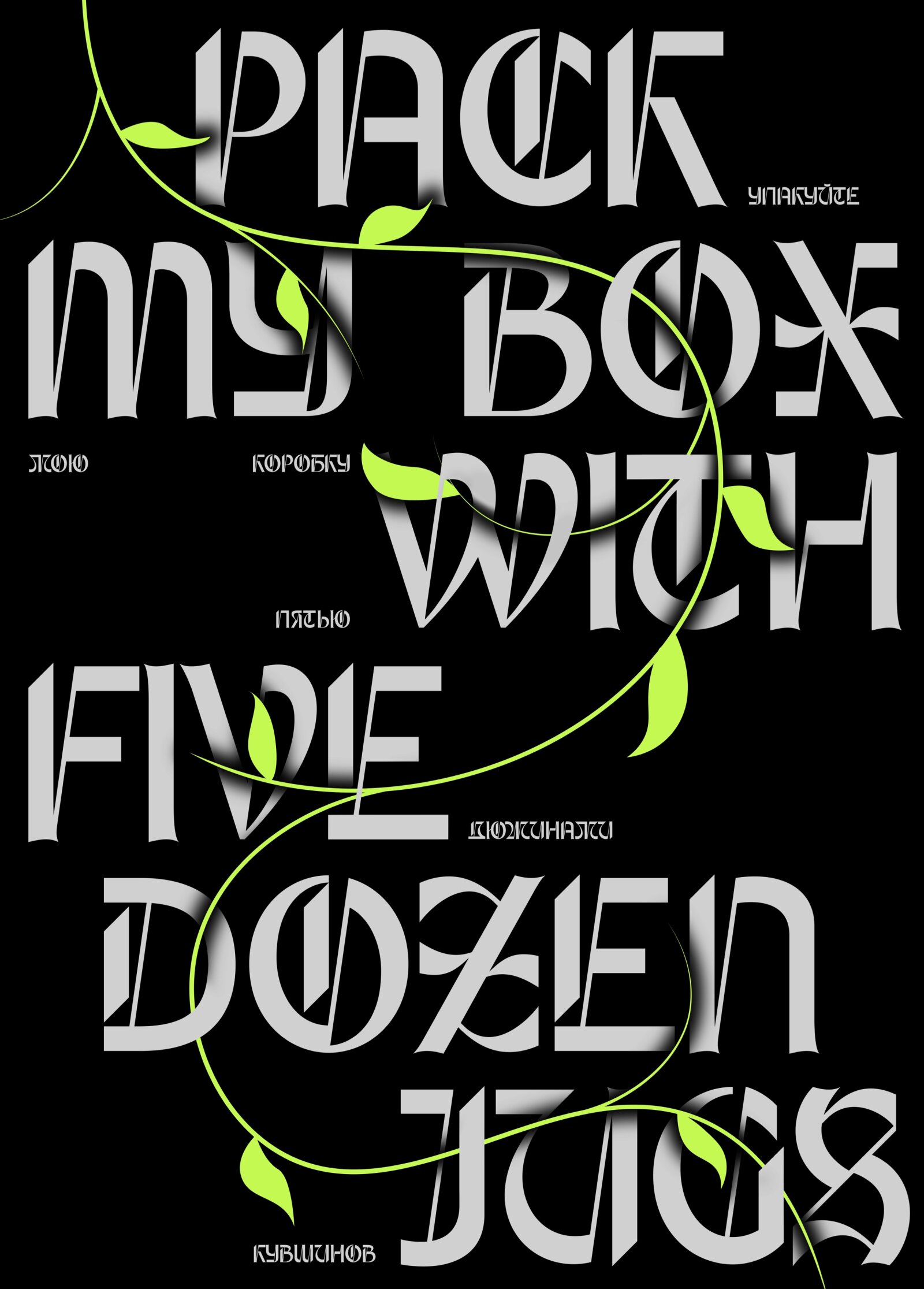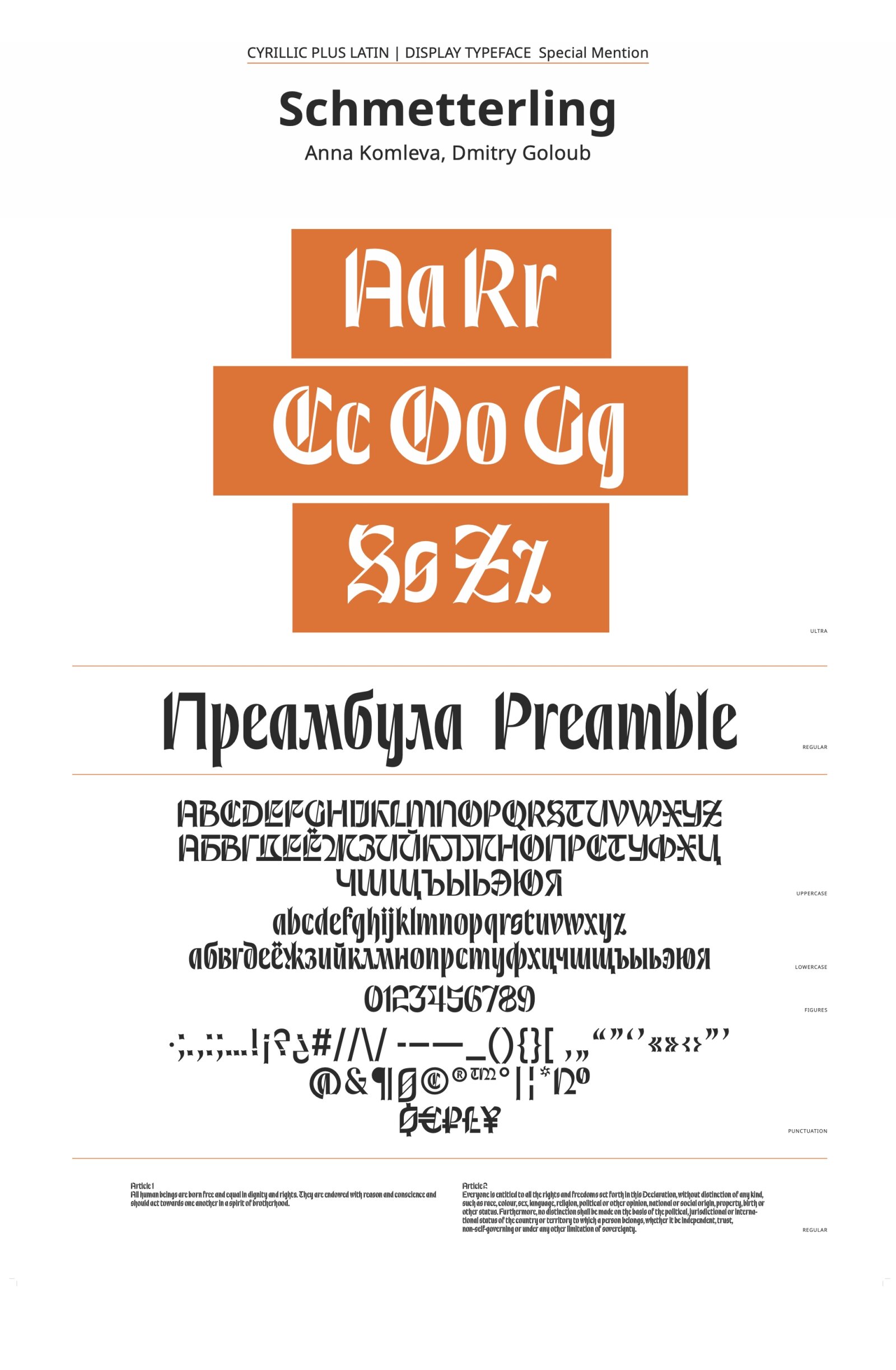
Schmetterling
by Anna Komleva, Dmitry Goloub
Cyrillic
Brave design in the path less travelled, let alone in Cyrillic; a contemporary Fraktur with a dose of sans serif.